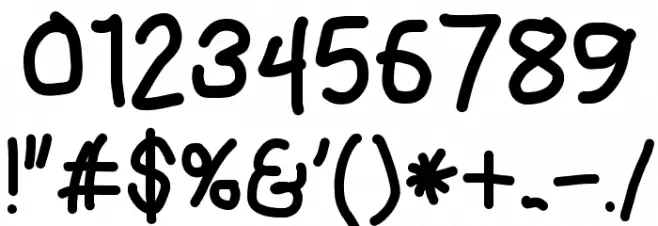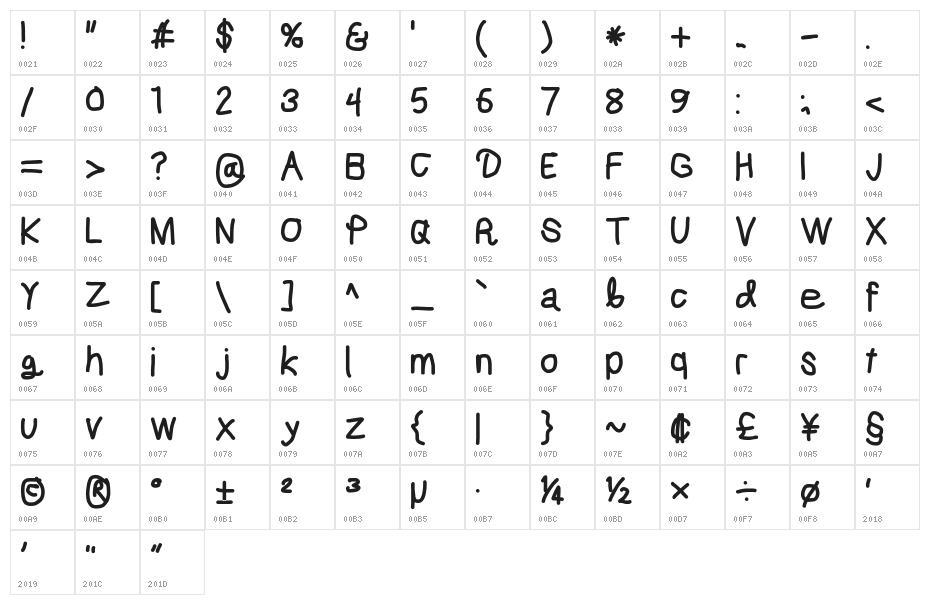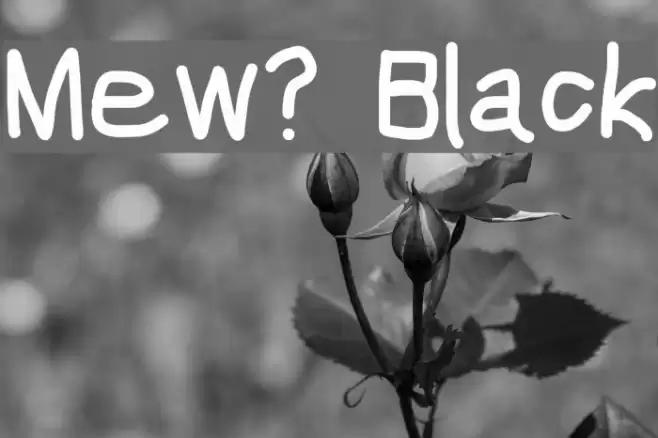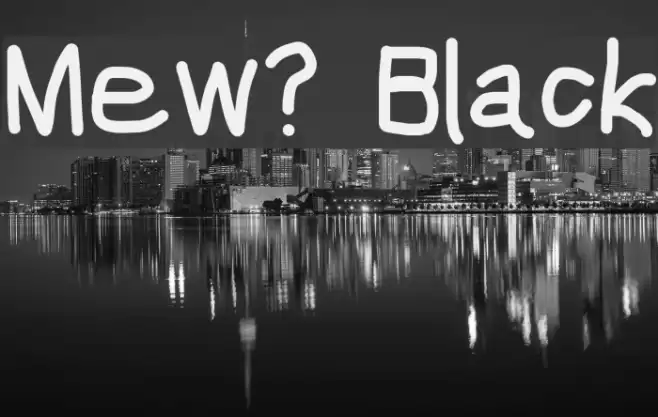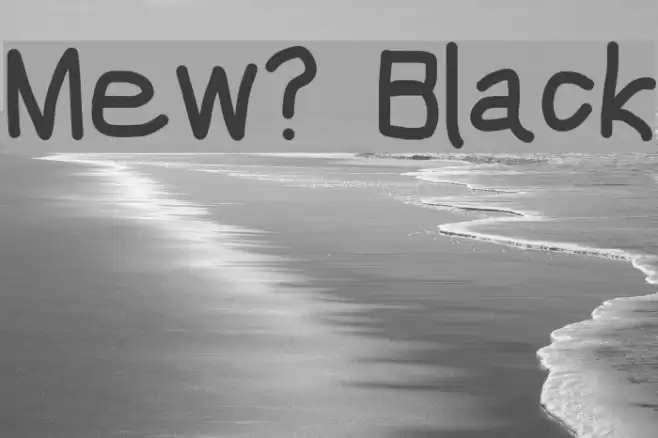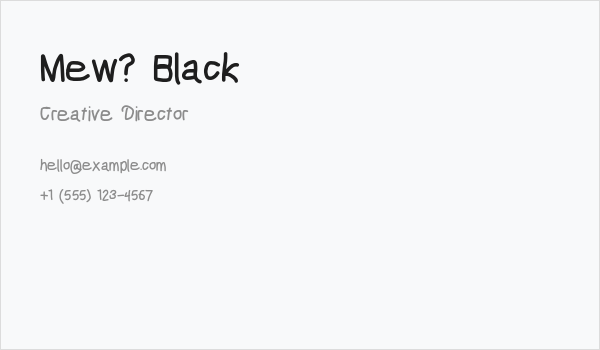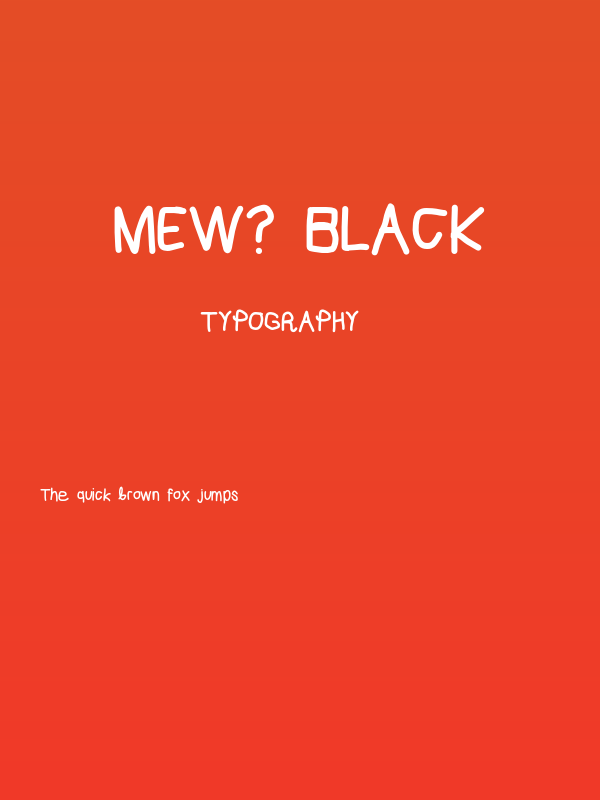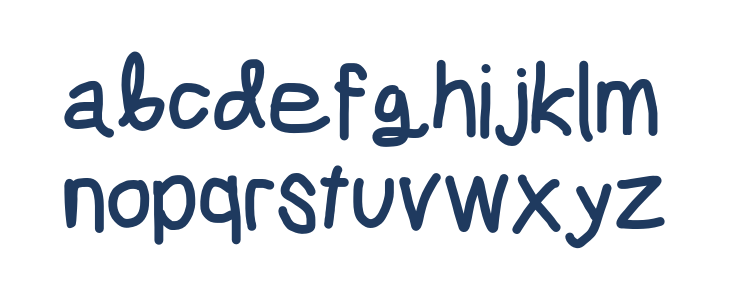
Mew? Black Font
Mew? Black Description
This playful and bold font features a handwritten style with a casual, friendly appearance. The letters are rounded and slightly irregular, giving it a whimsical and approachable feel. The uppercase and lowercase letters maintain a consistent style, with smooth curves and a slight tilt that adds to its informal charm. The numbers and special characters are equally expressive, ensuring a cohesive look across all text. This font is perfect for projects that require a personal touch or a fun, lighthearted vibe.